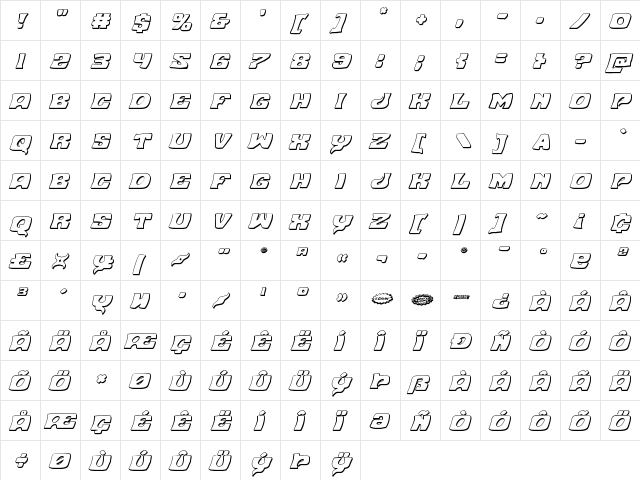
Nuevo Passion 3D Italic Italic
Design Context for Nuevo Passion 3D Italic Typeface
Nuevo Passion 3D Italic is a composed and adaptable typeface that performs quietly and consistently across a wide range of design contexts. The dynamic lean of this cut emphasises speed and emphasis in any layout.